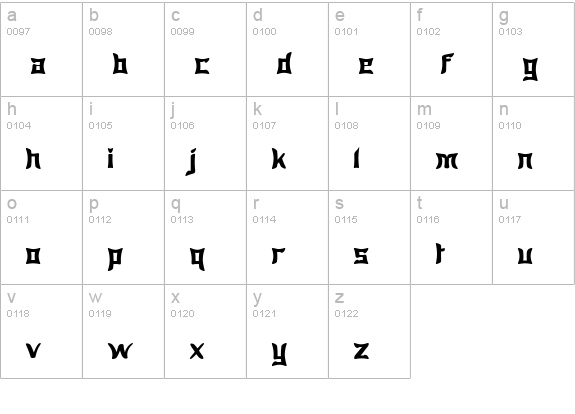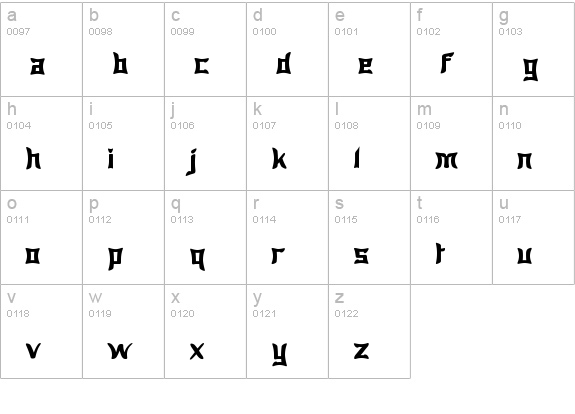
Wewak Font Details
Introducing Wewak Font, a modern and stylish typeface that embodies elegance and sophistication. With its sleek lines and contemporary design, Wewak Font is perfect for a wide range of design projects, from branding to digital media. This versatile font features a unique combination of sharp edges and smooth curves, creating a visually appealing contrast that catches the eye. Whether you're creating a logo, poster, or website, Wewak Font will add a touch of class and professionalism to your design. Best of all, Wewak Font is available for free download at FontsMarket.com. So go ahead and elevate your projects with this stunning typeface today!